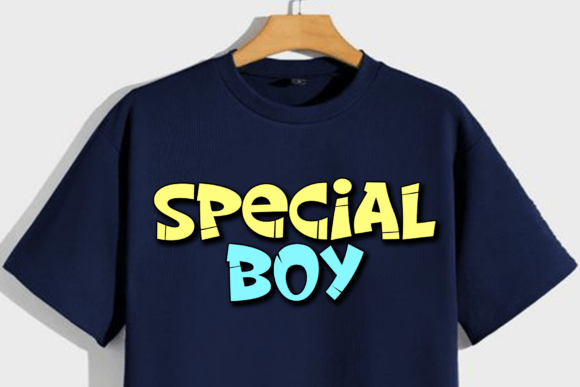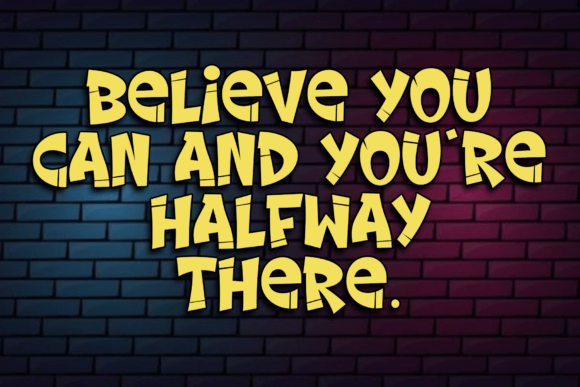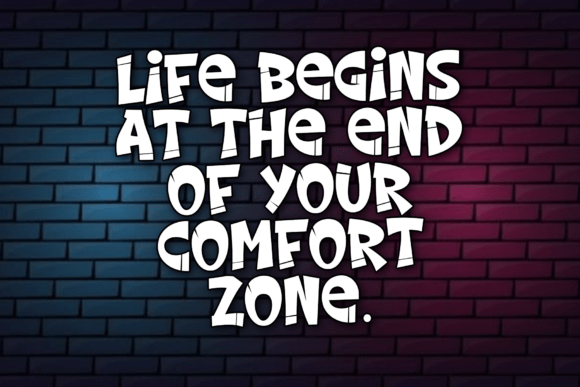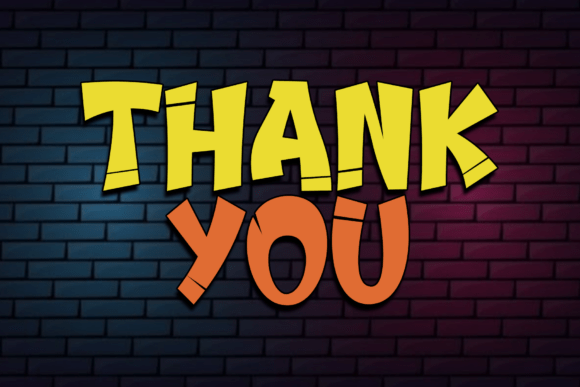
Brick Comic Font: Adding a Playful Touch to Your Designs
Brick Comic is a fun and playful display font that can easily be matched to an incredibly large set of projects. With its unique and eye-catching design, it can add a touch of personality to your creative ideas and make them stand out. In this article, we’ll explore the features and benefits of Brick Comic Font, and how it can be used to elevate your designs.
What is Brick Comic Font?
Brick Comic Font is a display font designed to resemble the classic comic book style. It features bold lines, bright colors, and a playful aesthetic that’s reminiscent of childhood nostalgia. The font is perfect for designers and crafters who want to add a touch of whimsy and fun to their projects.
Key Features of Brick Comic Font
- Playful and Fun Design: Brick Comic Font features a unique and playful design that’s perfect for adding a touch of personality to your projects.
- Bold and Eye-Catching: The font is bold and eye-catching, making it perfect for headlines, titles, and other display text.
- Highly Versatile: Brick Comic Font can be used for a wide range of projects, from digital designs to print materials.
- Easily Customizable: The font can be easily customized to fit your project’s needs, including adjusting font size, color, and style.
Benefits of Using Brick Comic Font
Brick Comic Font offers a range of benefits for designers and crafters, including:
- Adds Personality to Your Designs: The font’s playful and fun design can add a touch of personality to your projects and make them stand out.
- Perfect for Kids and Adults Alike: The font’s classic comic book style appeals to both kids and adults, making it perfect for projects targeting a wide range of audiences.
- Increases Readability: The font’s bold and clear design makes it easy to read, even at small sizes.
- Saves Time and Effort: With Brick Comic Font, you can quickly and easily add a professional-looking design to your projects, saving you time and effort.
Project Ideas Using Brick Comic Font
Brick Comic Font can be used for a wide range of projects, including:
- Digital Designs: Use the font for social media graphics, blog posts, and other digital designs.
- Print Materials: Use the font for print materials, such as brochures, flyers, and posters.
- Crafting Projects: Use the font for crafting projects, such as card making, scrapbooking, and DIY signs.
- Signs and Displays: Use the font for signs and displays, such as store signs, event banners, and trade show displays.
Tips for Using Brick Comic Font
Here are some tips for using Brick Comic Font:
- Use it for Headlines and Titles: The font is perfect for headlines and titles, where you want to grab the reader’s attention.
- Pair it with Other Fonts: Pair Brick Comic Font with other fonts to create a unique and visually appealing design.
- Experiment with Colors: Experiment with different colors to find the perfect combination for your project.
- Keep it Simple: Don’t overdo it – keep your design simple and clean to ensure the font is the focus.
Brick Comic Font is a fun and playful display font that’s perfect for adding a touch of personality to your designs. With its bold and eye-catching design, it’s perfect for a wide range of projects, from digital designs to print materials. Whether you’re a designer or crafter, Brick Comic Font is a great addition to your font collection.